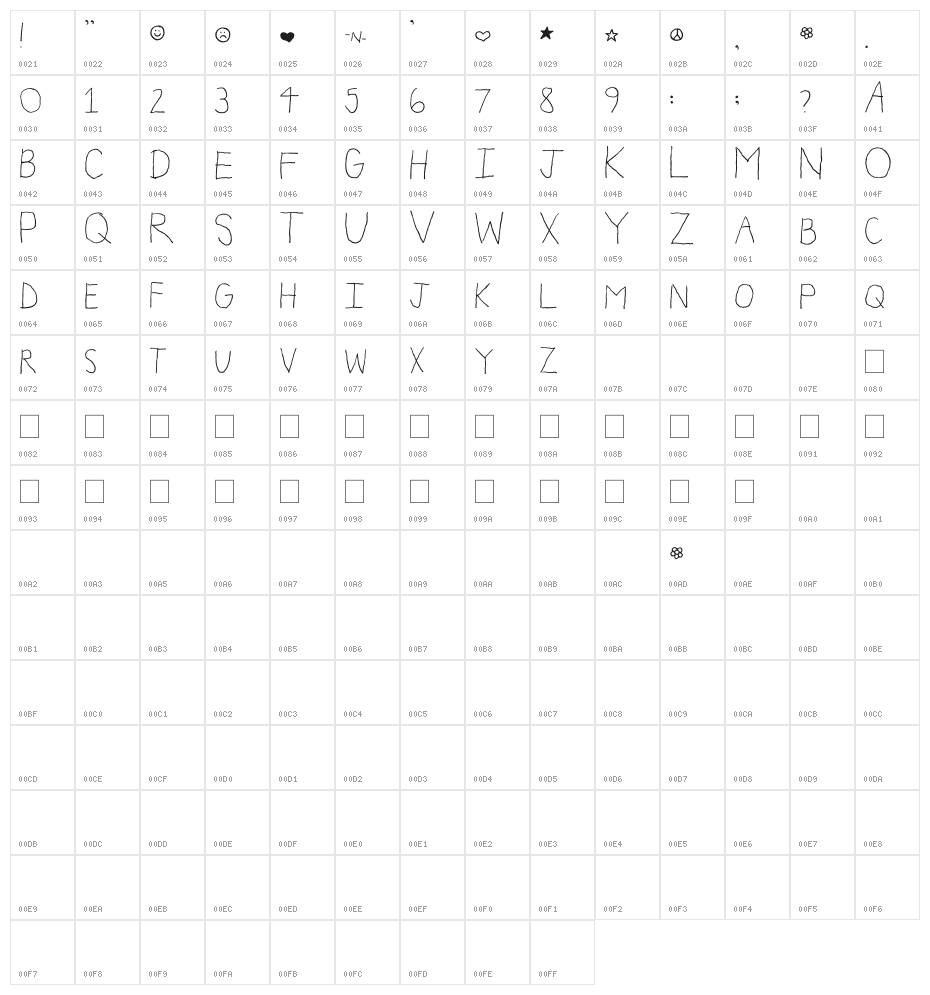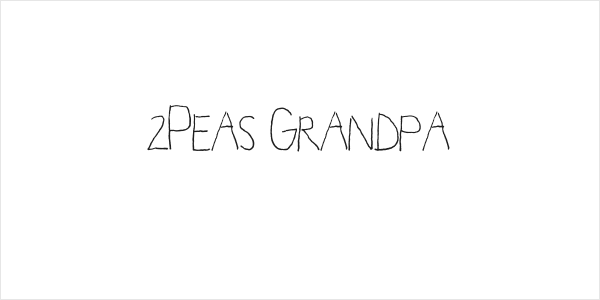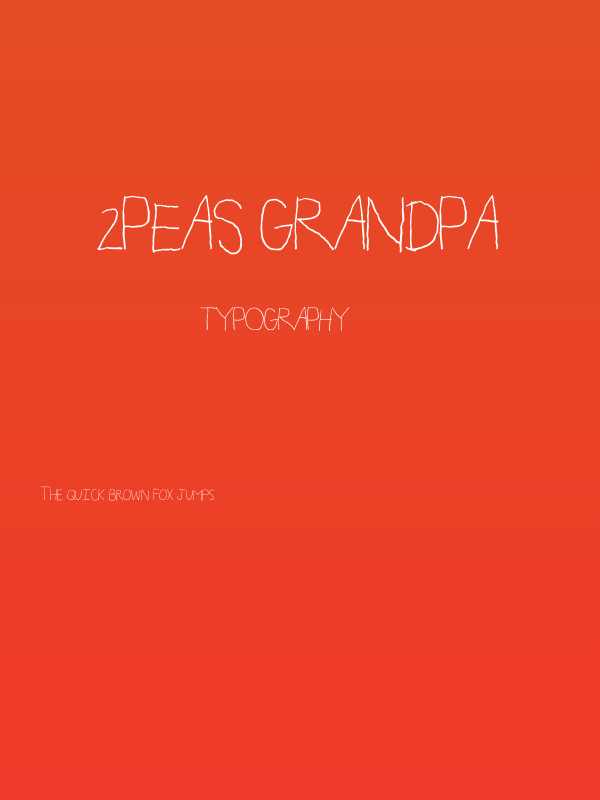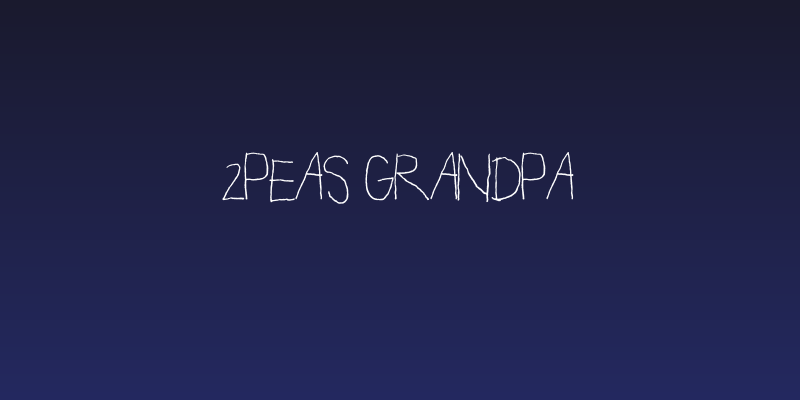
2Peas Grandpa Font
2Peas Grandpa Description
This font features a playful and whimsical handwritten style, characterized by its uneven strokes and casual appearance. The letters are slightly irregular, giving it a personal and informal touch, reminiscent of a child's handwriting or a note hastily scribbled. The uppercase and lowercase letters maintain a consistent style, with rounded edges and a slight tilt, adding to its charm. Numbers and special characters follow the same playful design, making it suitable for creative and fun projects. The font's unique personality makes it stand out, ideal for designs that require a touch of individuality and warmth.
| Proposed Projects | Ideal for children's books, greeting cards, scrapbooking, and playful branding. |